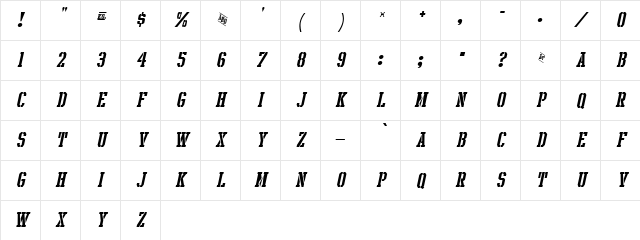
Complete Intramural Stencil Italic JL Regular glyph index. Displaying only characters natively supported by Intramural Stencil Italic JL Regular font.
Intramural Stencil Italic JL borrows the utilitarian aesthetic of stencil lettering, with its characteristic cutaways and no-frills construction lending an industrial edge. The slanted form adds forward momentum and visual energy.
Pro Tip: Use Intramural Stencil Italic JL at large sizes on packaging, posters, or apparel where the stencil cutaways read clearly. Avoid small sizes where those gaps become visual noise.